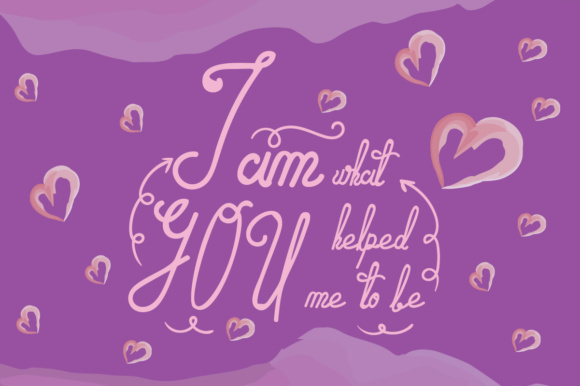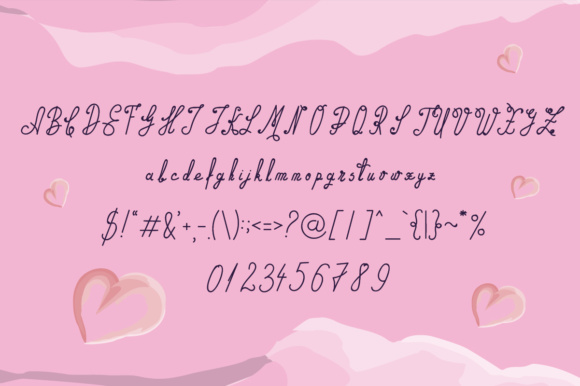
Introduction to Pink Friday Font
Remember that moment when you stumbled upon the perfect design element for your project? The one that took your creative vision from bland to grand? For designers, it’s that ‘aha’ moment that makes all the difference. For me, it was discovering the Pink Friday Font – a fun and smooth typeface that adds a touch of elegance to any design.
What makes Pink Friday Font stand out is its beautiful swashes, making it perfect for designs that require a feminine feel. With its high-quality design, this font is a valuable resource for any creative project. Whether you’re working on a branding project or designing a wedding invitation, Pink Friday Font is sure to impress. Plus, it’s available for a free download, making it an accessible design resource for designers of all levels.
Key Features of Pink Friday Font
- Transparent Background: The Pink Friday Font offers a transparent background, making it easy to overlay on any image or design without compromising its quality.
- High-Quality Design: This font is designed with high-quality standards, ensuring it looks crisp and clear on any creative project, from print to digital media.
- Size and Resolution: The font comes in a range of sizes, from 12 to 72 points, and is optimized for high-resolution displays, making it perfect for use in print and digital media.
- Unique Characteristics: The Pink Friday Font features a distinctive, cursive script that adds a touch of elegance and sophistication to any design project, making it a standout choice for creative professionals.
- Perfect for Creative Projects: The Pink Friday Font is ideal for use in a variety of creative projects, including invitations, posters, social media graphics, and more.
Honest Review: Pink Friday Font
I recently had the chance to work with the Pink Friday Font, and I must say it’s been a wild ride. This font is perfect for any creative project that needs a touch of elegance and sophistication.
- What works well: ✨ The transparent background allows for seamless integration with any design element, giving you complete control over the final look.
However, I did encounter a few limitations with this font. ⚠️ The font is only available in a limited number of styles, which can make it less versatile than other design resources. Additionally, the font may not be suitable for projects that require a lot of customization.
Overall, I’m impressed with the Pink Friday Font. It’s a great addition to any designer’s toolkit, and its high-quality design makes it perfect for a variety of creative projects. If you’re looking for a free design resource that’s easy to use, I’d definitely recommend giving it a try.
Tips for Getting the Most Out of Pink Friday Font
Use the Pink Friday Font in combination with a transparent background to create a unique design. Experiment with different font sizes and styles to add depth and visual interest to your project.
The Pink Friday Font is ideal for creative projects such as social media graphics, flyers, brochures, and presentations. Its high-quality design and versatility make it a valuable design resource for any project.